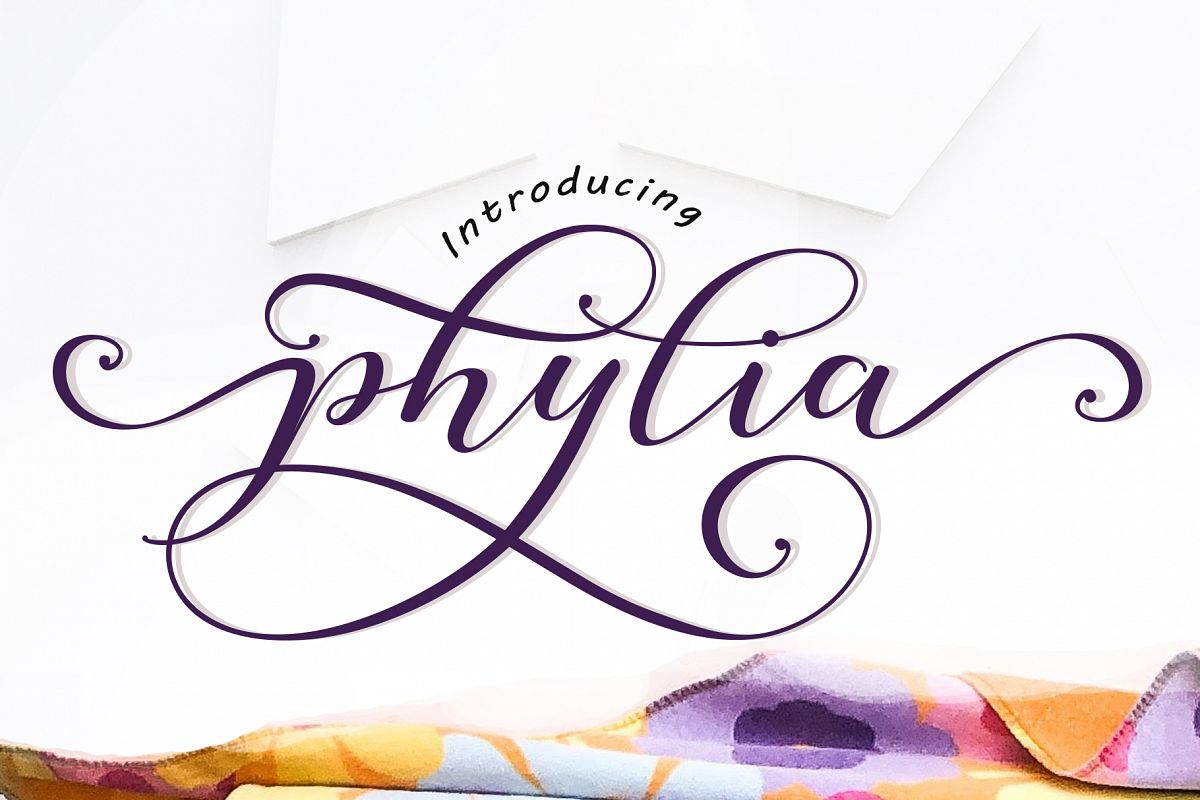
Introducing: phylia
A script font with a handwritten style. phylia is perfect for branding projects, homeware designs, product packaging, use in name card, invitation cards, etc.